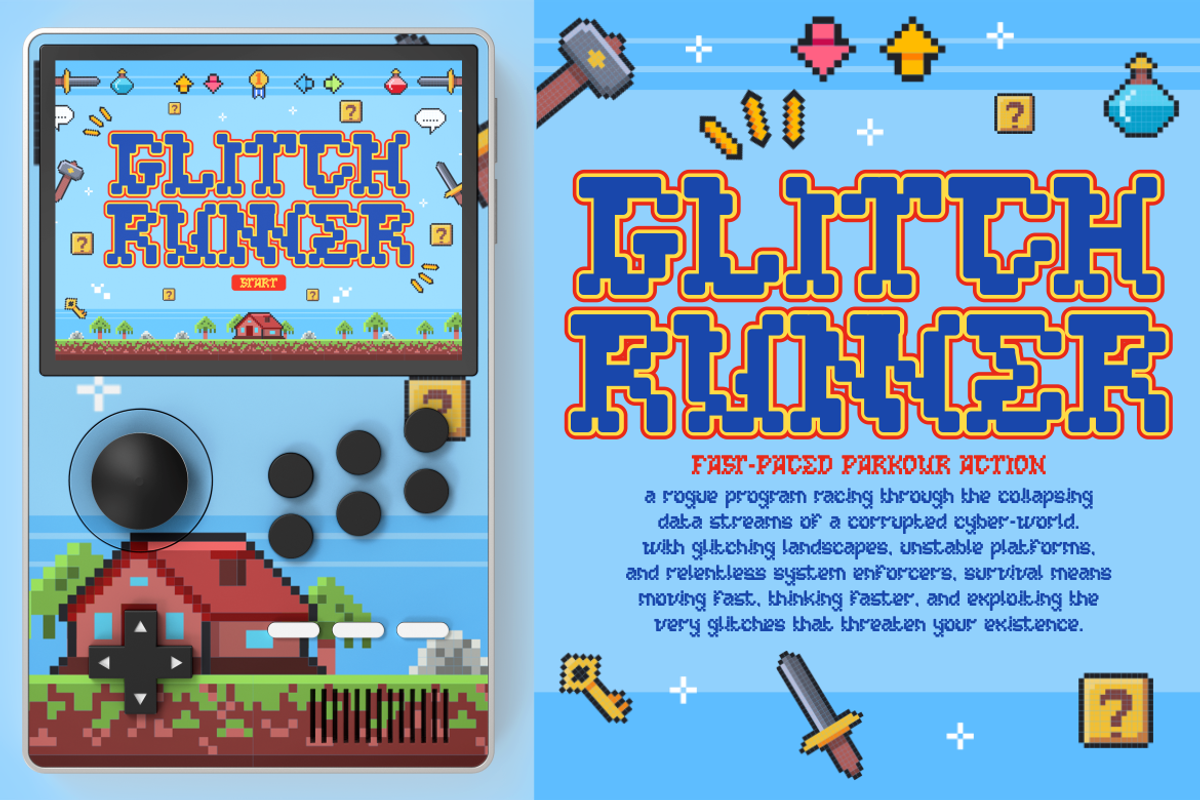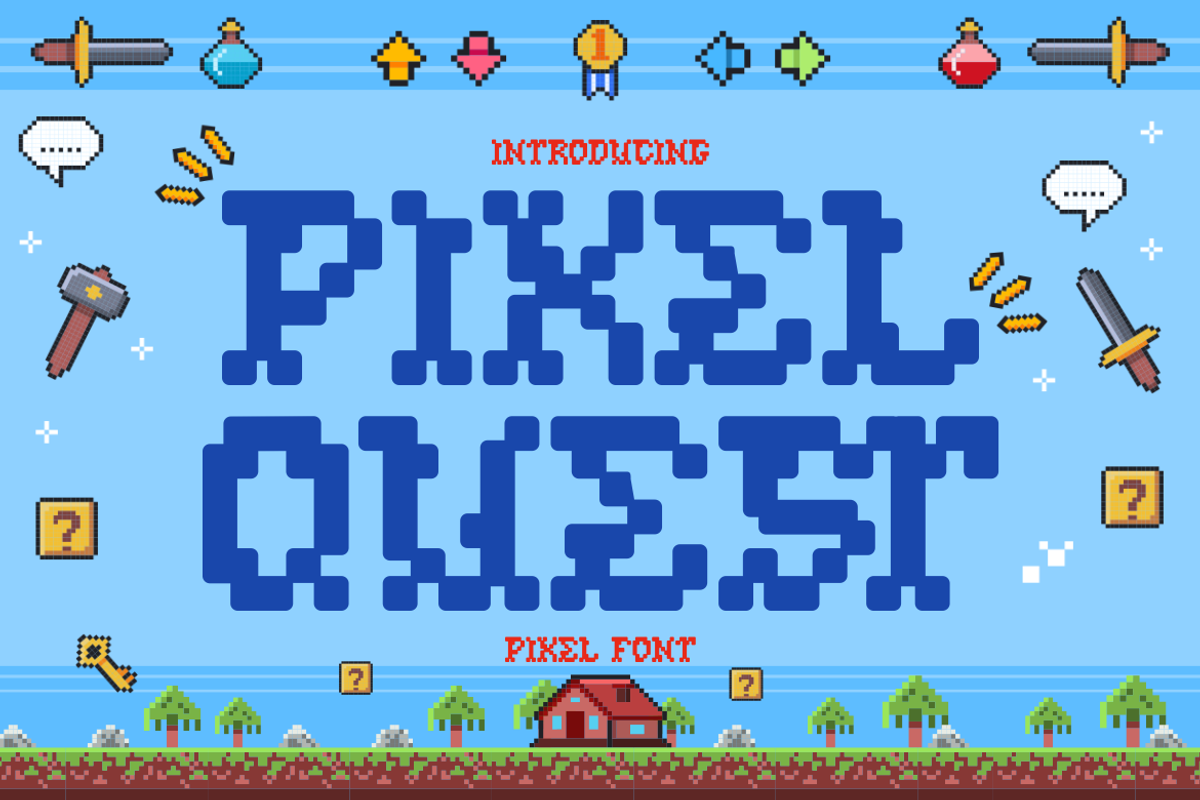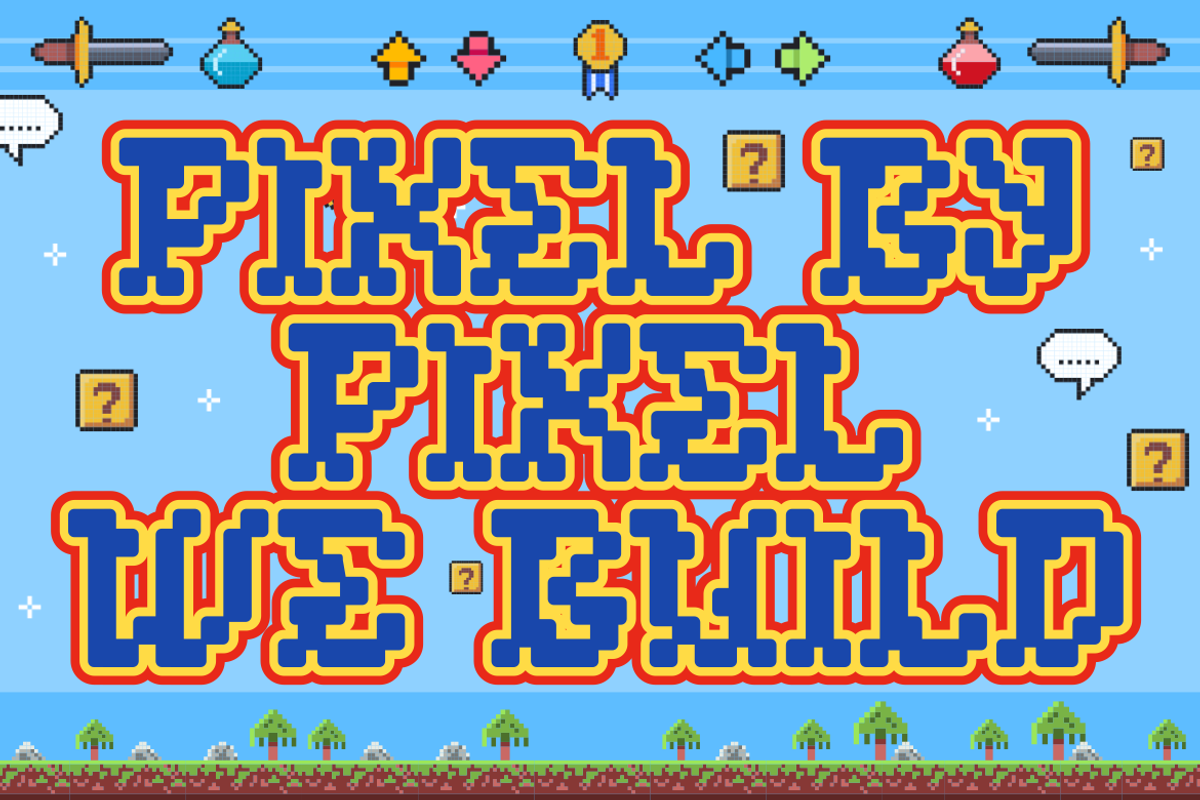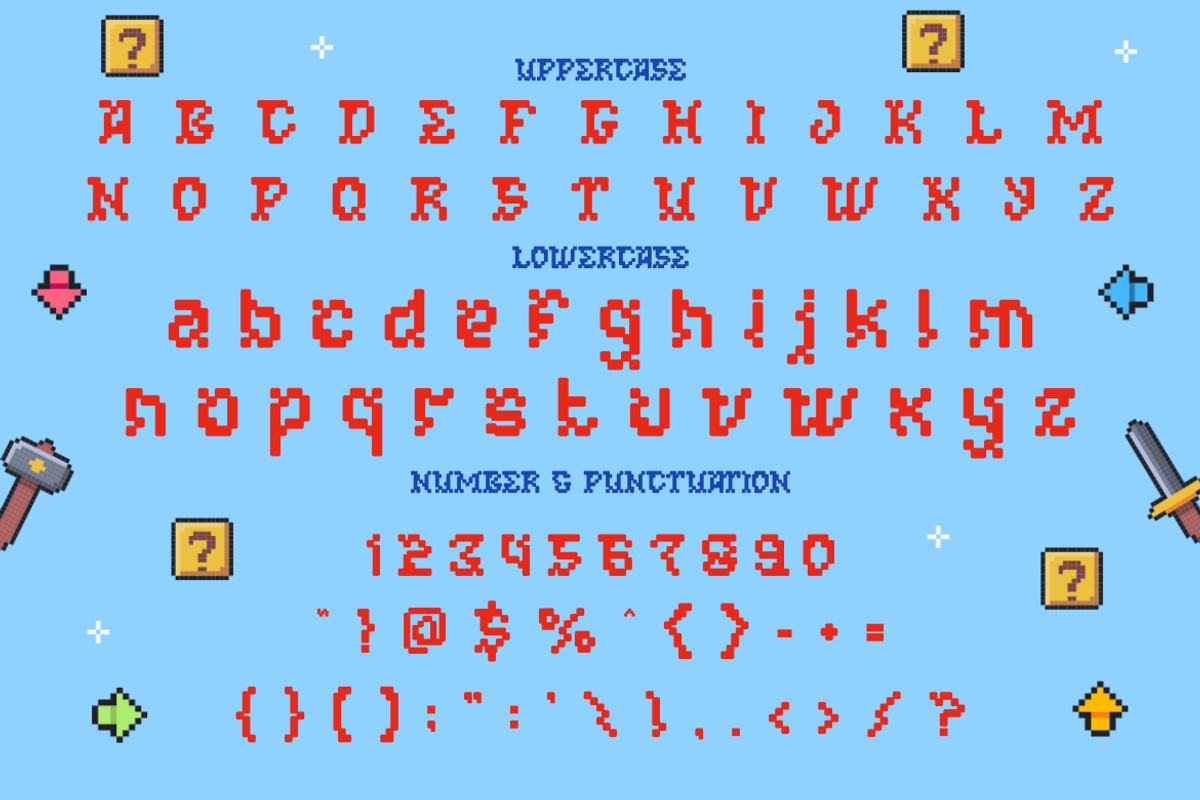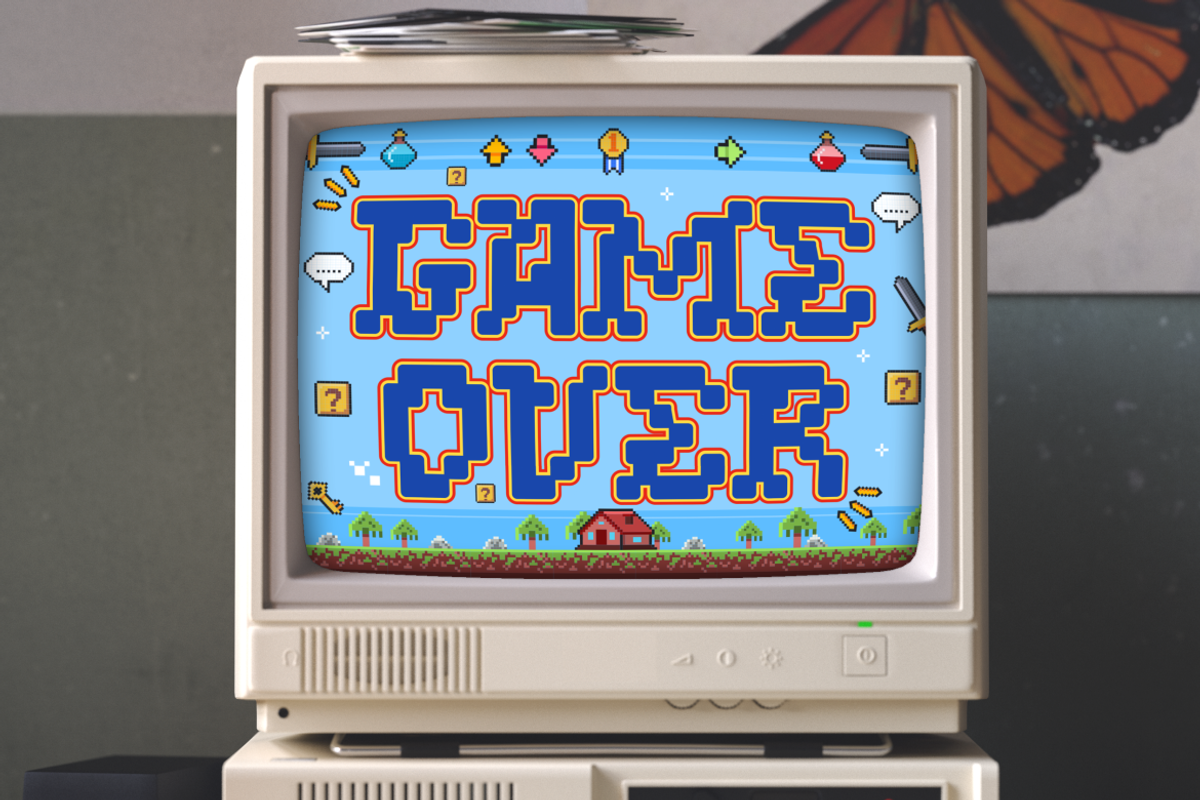
Pixel Quest - Pixel Font
Introducing Pixel Quest - Pixel Font, a retro-inspired pixel typeface that brings the charm of classic video games to your designs. With its blocky, 8-bit structure, this font perfectly captures the essence of nostalgic arcade games and old-school RPGs. The bold, rounded pixel edges give it a playful yet strong appearance, making it ideal for gaming-related projects, posters, branding, and digital content. The blue, high-contrast letters ensure great readability, while the surrounding pixel art elements—swords, potions, dialogue bubbles, coins, and classic game icons—enhance its video game aesthetic. The bright blue sky background with pixelated landscapes adds an adventurous touch, making this font an excellent choice for game developers, streamers, and creative designers looking for a retro gaming feel.
Pixel Quest is perfect for gaming logos, esports branding, YouTube thumbnails, Twitch overlays, digital stickers, and merchandise inspired by pixel art. Whether you're working on a fantasy RPG, platformer, or retro arcade project, this font will transport your audience back to the golden era of 8-bit and 16-bit games. The playful and adventurous vibe makes it a fantastic choice for kids' projects, comics, and fun packaging designs. Elevate your designs with Pixel Quest - the ultimate pixel font for gamers, creators, and nostalgia lovers!